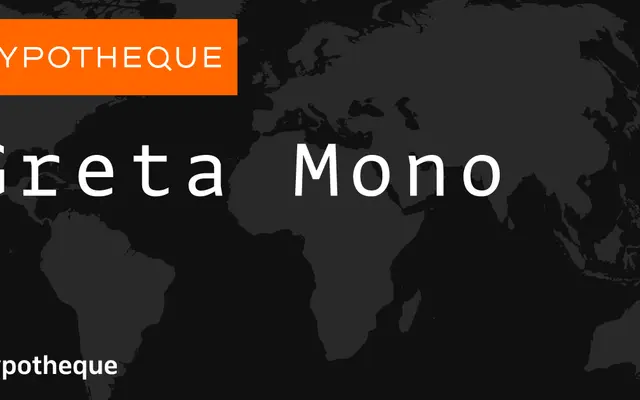
Greta Mono
A monospaced family from Typotheque spanning ten weights from Hairline to Black, with condensed and variable companions.
An extensive mono system with ten weights, each accompanied by an italic, plus a condensed subfamily that mirrors the full weight range. A variable font version rounds out the offering. The family has been put to use on functional projects such as EU Presidency postage stamps, suggesting a versatility suited to both screen and print applications.
Explicitly a monospaced typeface with condensed and variable variants, making it a clear monospaced classification. Its range of weights and italics places it firmly in the functional mono category.